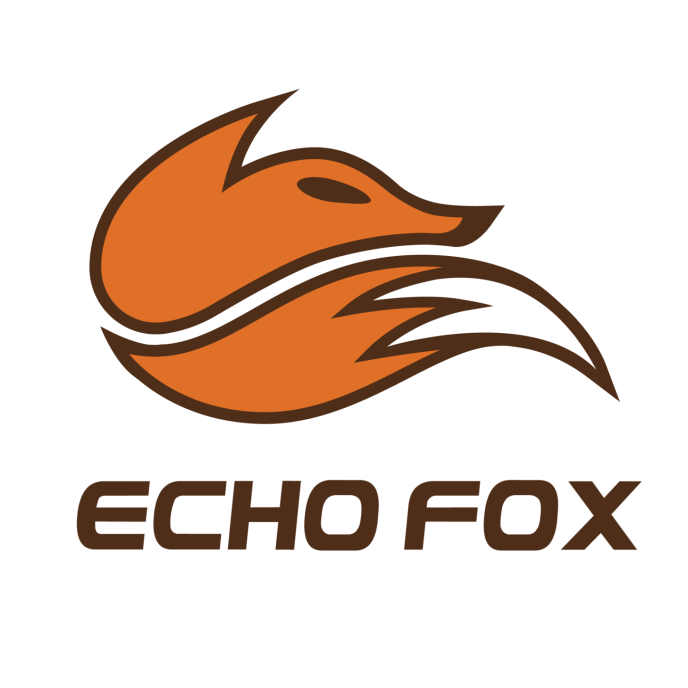
Echo Fox Font
Fonts in UseEcho Fox was a professional esports organization that was founded in 2015 and had teams competing in various popular games such as League of Legends, Call of Duty, and Street Fighter V. However, the organization ceased operations in 2020.
Echo Fox font resembles Federal Service Italic, a display sans serif created by Daniel Zadorozny in 2011. With 23 styles in the font family, you can easily download it for free from the Fonts Used Section.